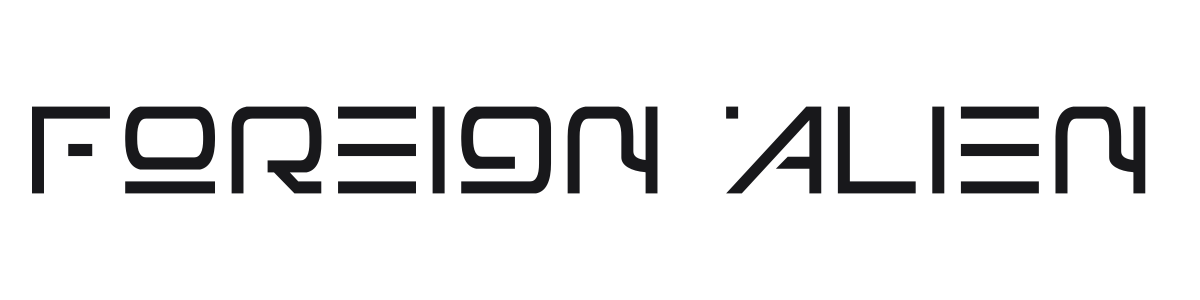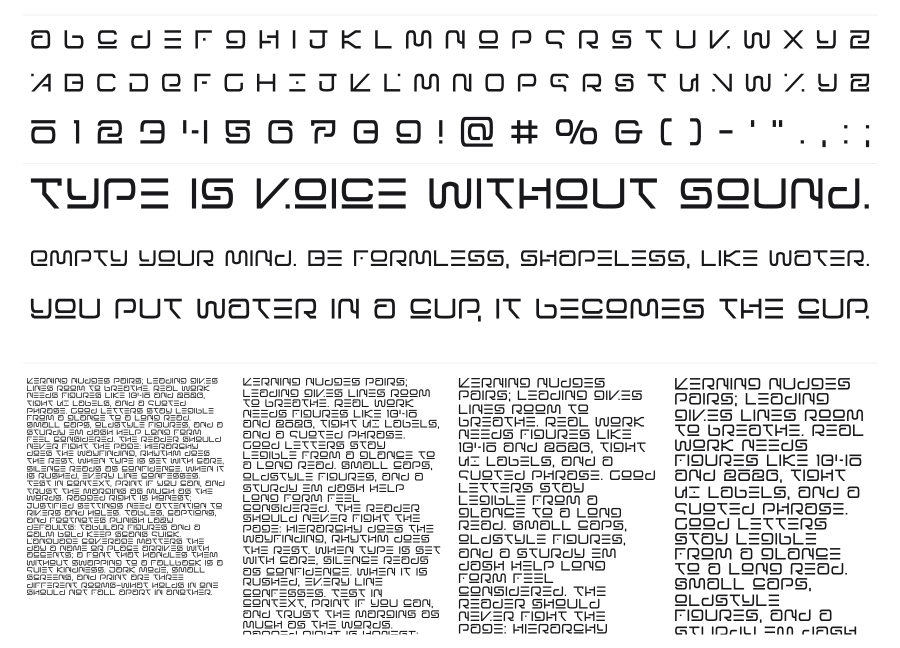
Foreign Alien
Foreign Alien is a geometric sci-fi display font built from angular segments and squared terminals that give Latin characters an extraterrestrial appearance. The wide, monoweight strokes and modular construction create a consistent mechanical texture across the alphabet. It reads instantly as science fiction, with enough clarity to work in headlines, game UI, and film titles.